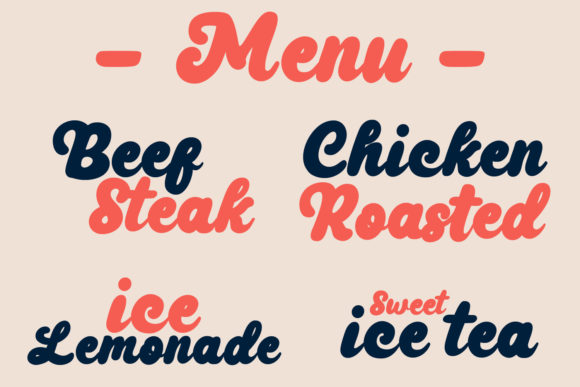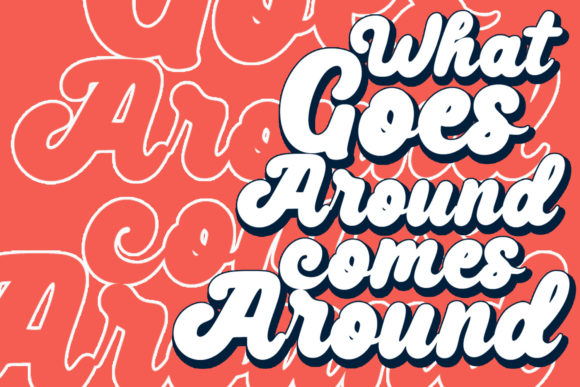
Pure Grapes Font
db-ku.com - Script & Handwritten -- Pure Grapes is a fancy handwritten script font. With bold contrast stroke, fun character with a bit of ligatures and alternates. To give you an extra to your creative work.